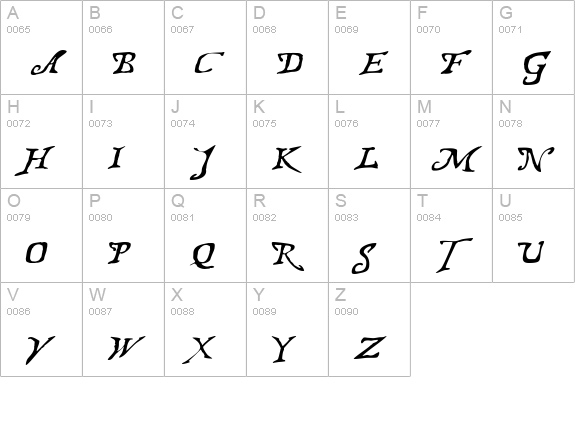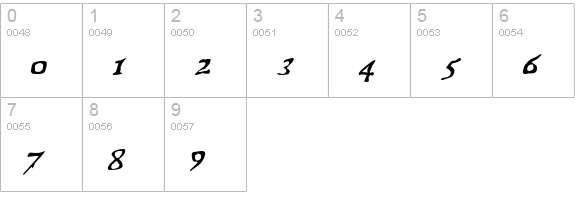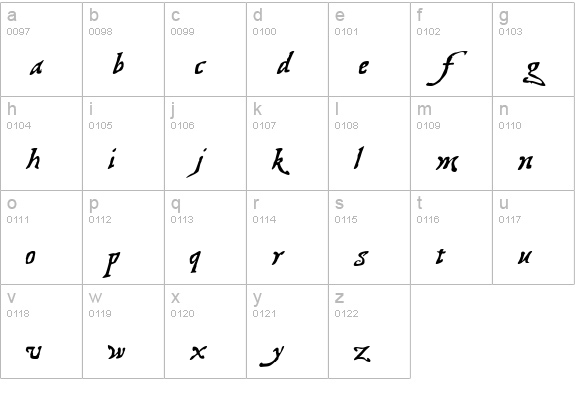
Treasure Map Deadhand Font Details
Treasure Map Deadhand font is a captivating and adventurous typeface that brings to life the spirit of hidden treasures and long-lost maps. With its intricate and weathered appearance, this font exudes a sense of mystery and discovery, making it perfect for projects that require a touch of intrigue. Every letter in the Treasure Map Deadhand font is meticulously designed to resemble hand-drawn symbols found on ancient maps. Its uneven lines and worn edges give it an authentic and aged look, evoking a sense of history and adventure. What makes this font even more appealing is that it is freely available to download at FontsMarket.com. This means that you can incorporate the charm and allure of Treasure Map Deadhand into your designs without any cost. Whether you're working on a pirate-themed invitation, a treasure hunting game, or a vintage-inspired poster, this font will add a unique and captivating touch. In addition to its stunning appearance, Treasure Map Deadhand font is also highly versatile. It can be used in various sizes and styles, from large headings to small captions, ensuring that your text stands out and grabs attention. Its legibility, combined with its distinctive character, makes it a perfect choice for both print and digital projects. So, if you're in search of a font that will transport your audience to a world of adventure and mystery, look no further than Treasure Map Deadhand. Download it for free at FontsMarket.com and let your imagination take you on a thrilling journey.